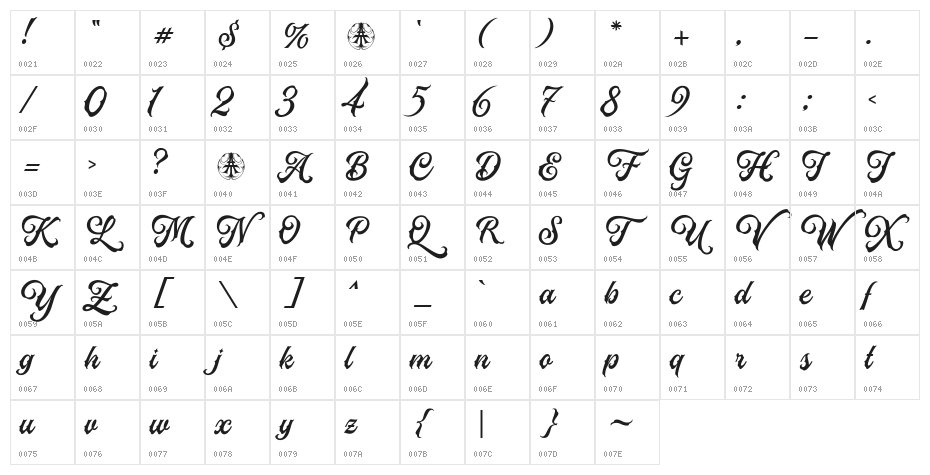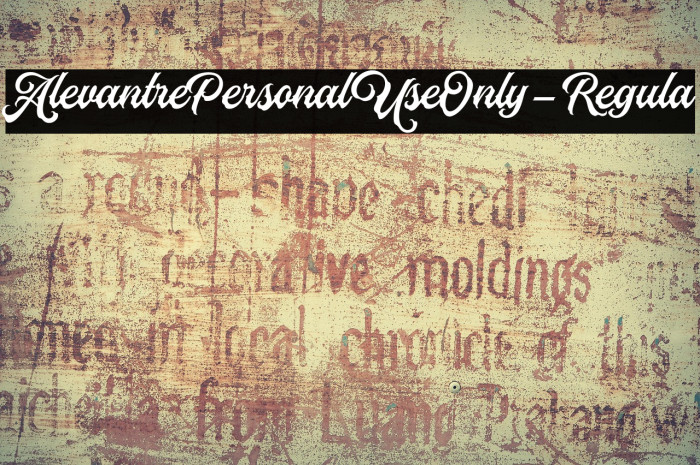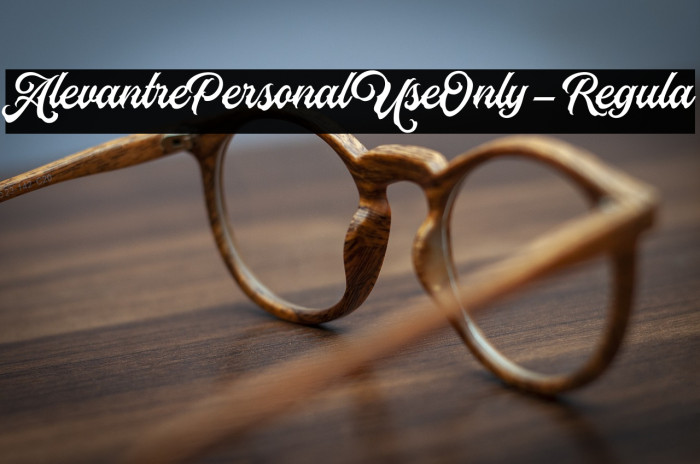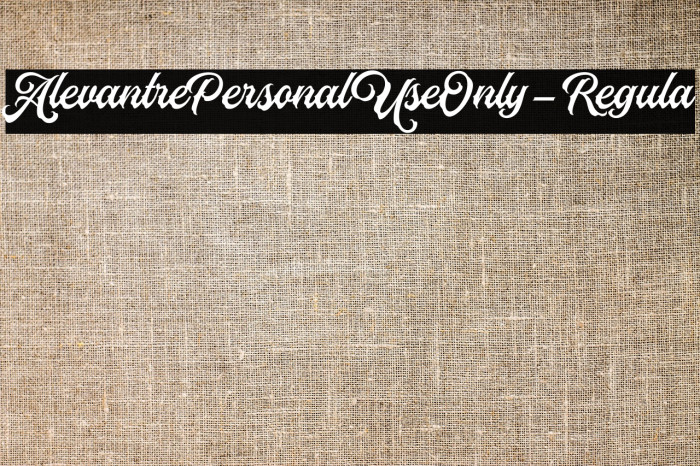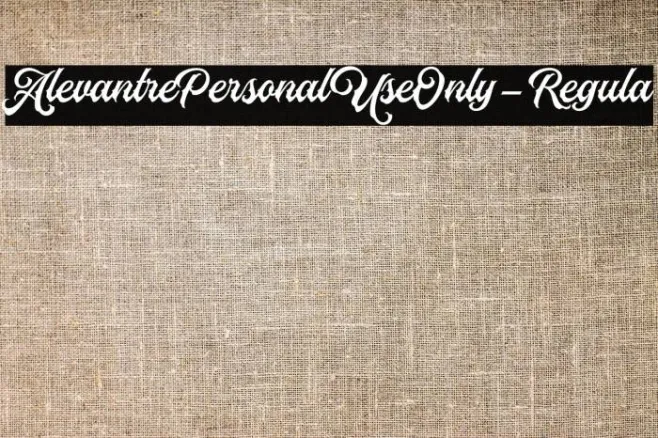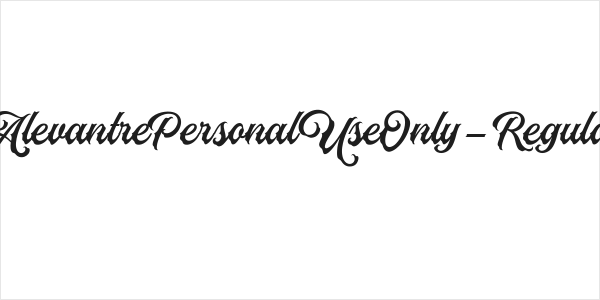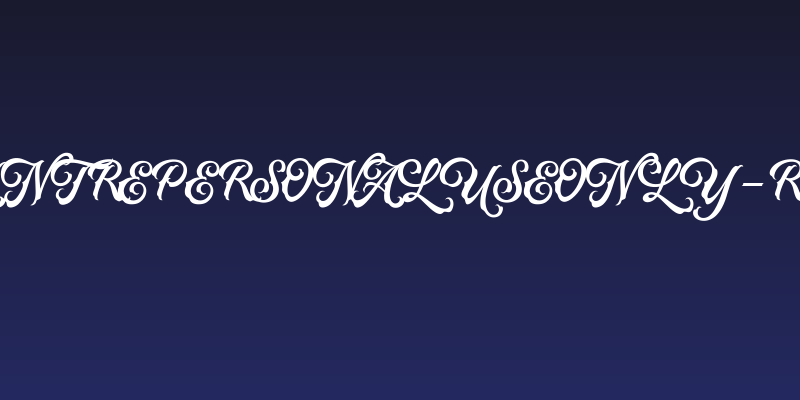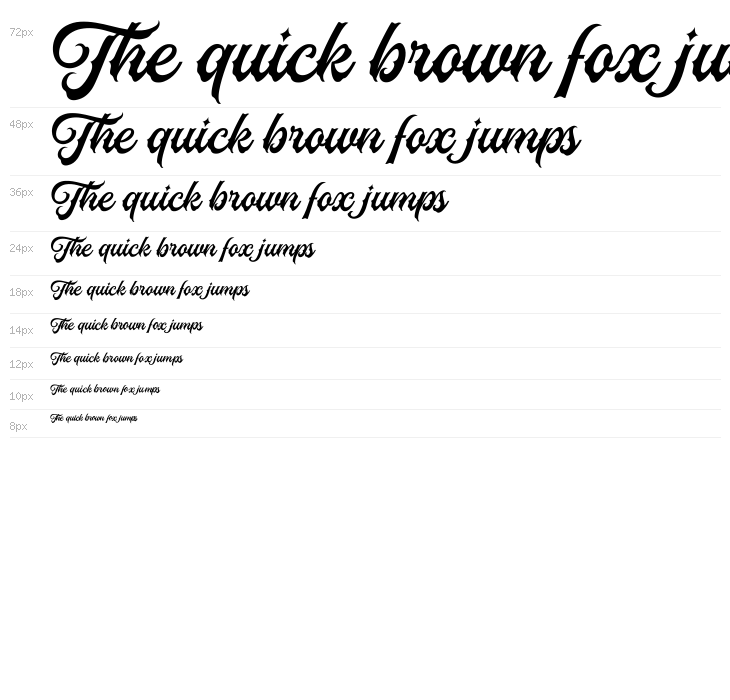
AlevantrePersonalUseOnly-Regula Font
AlevantrePersonalUseOnly-Regula Description
This font features an ornate and decorative script style, characterized by its flowing, interconnected letterforms and elaborate flourishes. The uppercase letters are particularly intricate, with swirls and loops that give them a sense of elegance and sophistication. The lowercase letters maintain a consistent style, with smooth curves and a slightly slanted orientation that enhances the script's fluidity. The numerals are equally stylized, with unique shapes that complement the overall aesthetic. Special characters are adorned with decorative elements, adding to the font's artistic appeal. This font is ideal for projects that require a touch of elegance and creativity.
| Use Case | Logos, Invitations, Decorative Headlines |
| Proposed Projects | Ideal for wedding invitations, luxury branding, artistic posters, and elegant packaging designs. |